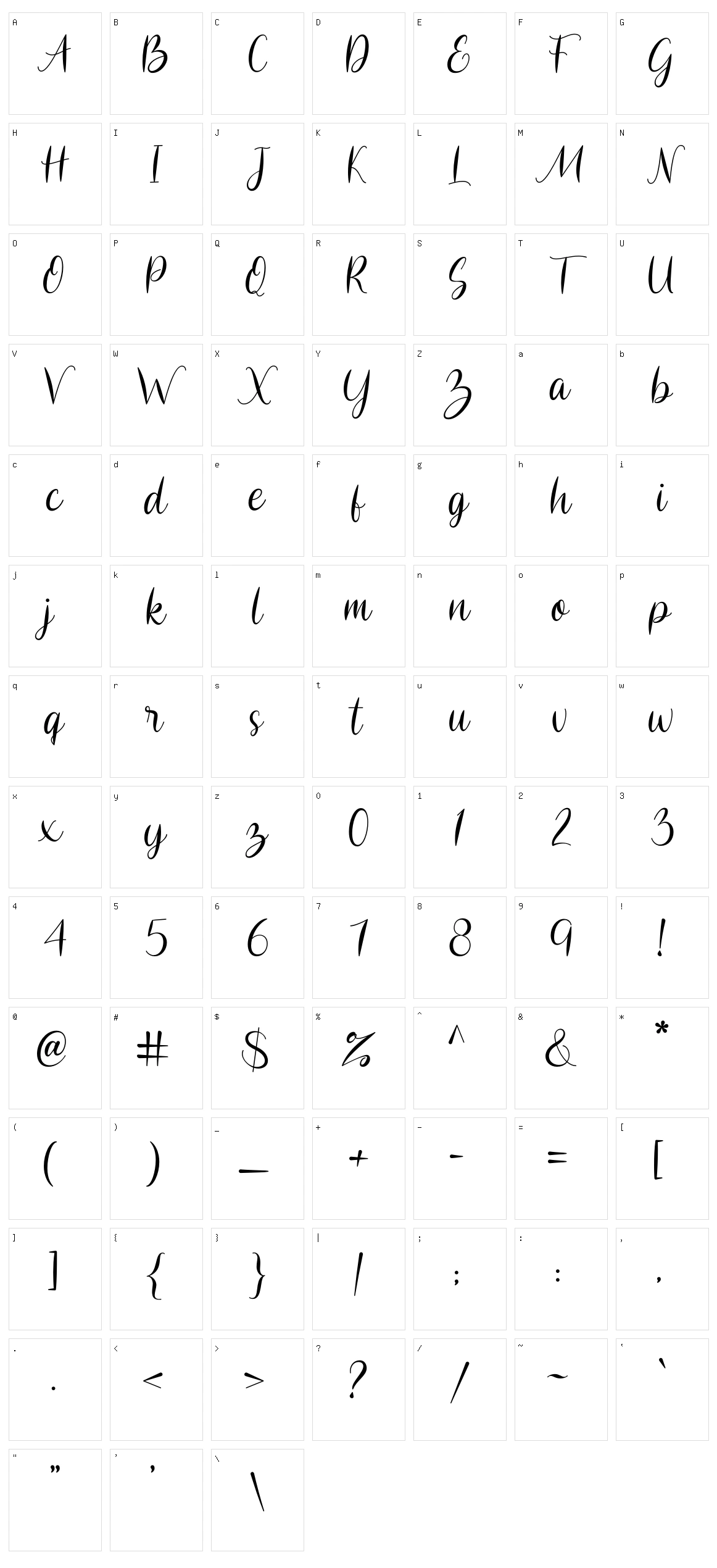
The free font England is carefully designed by Blue Studio09, showcasing a thoughtful balance of creativity and usability and falls under the Script font style. When you download the ZIP file, it contains only 641.24 KB of font files, making it lightweight and quick to download. Please review the license details below to understand permitted usage and distribution rights. If license information is not available, we recommend using this font for personal projects only or contacting the author directly for commercial usage permissions.
england Stylish Calligraphy Font By Bluestudio